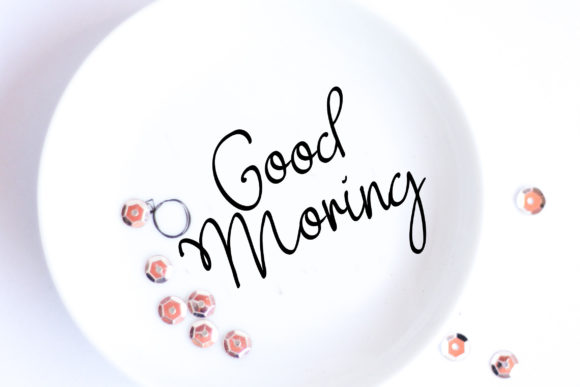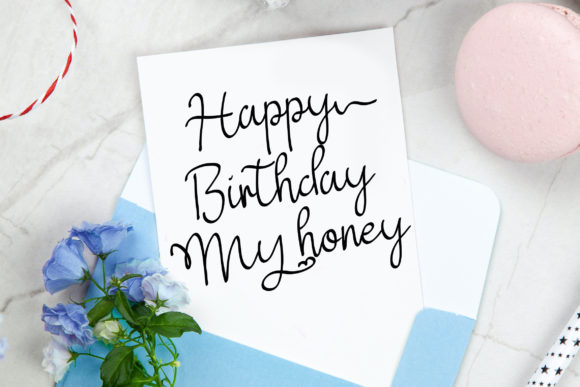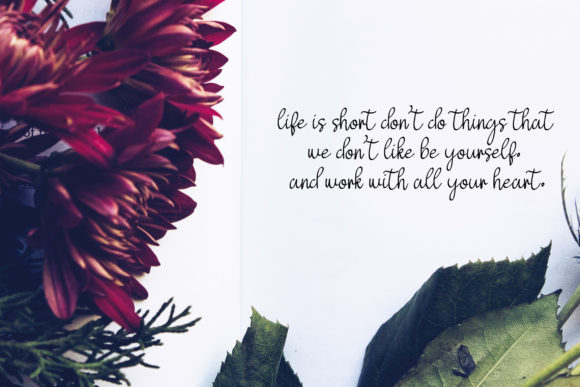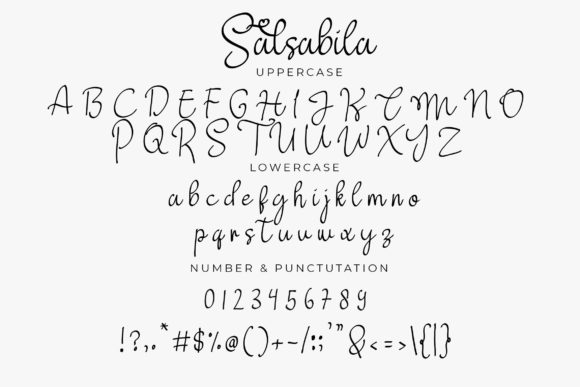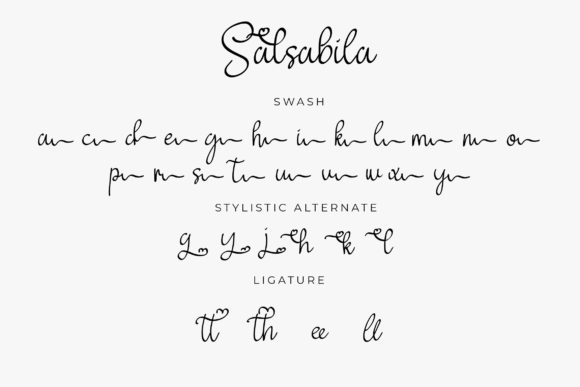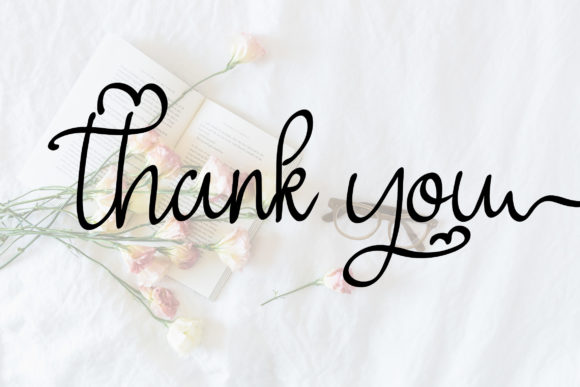
Introduction to Salsabila Font Font
Fonts play a crucial role in design, and the Salsabila Font font is a typeface that brings both character and versatility to any project. Whether you’re working on a branding project, a website, or a print design, the Salsabila Font font offers a unique style that can elevate your work.
Salsabila is a lovely and adorable script font.
It can be added to plenty of creations that require a personalized, romantic touch Add this cursive and well balanced font to your designs and you will love the final outcome.
Key Features of Salsabila Font Font
Why Choose Salsabila Font Font?
The Salsabila Font font is more than just a typeface – it’s a design tool that helps you communicate your message with style and clarity. Its unique character set and versatile design make it suitable for a wide range of applications, from elegant invitations to bold headlines.
With its carefully crafted letterforms and balanced proportions, the Salsabila Font font ensures readability and visual appeal across all mediums.
What makes Salsabila Font font special?
The Salsabila Font font stands out with its unique design, exceptional readability, and versatility across various design applications.